7 Best Font Recommendations for Subtitles with Good Readability
Best Font Subtitles
Audiences prefer video content because it presents visuals spoiling the eyes. If you want to have a large audience viewing your video, make sure to add subtitles. This is because not all people understand the language used in the video. So, let’s choose the best font for subtitles to make it easy to read and understand the information conveyed.
Font Recommendations with Great Readability
Try using the following font recommendations because they have a simple design that makes it easy for your audiences to read:
1. Georgia Font
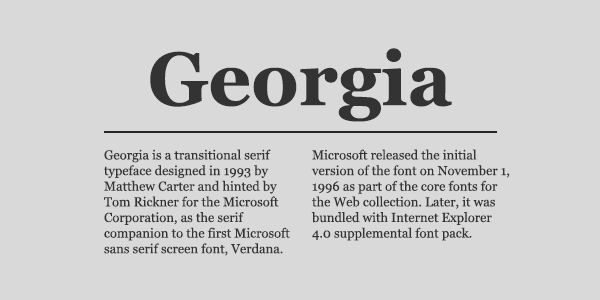
The first recommendation you can consider is Georgia font. The design of the letters in this font is simple and the combination of letters that form words are positioned close together flawlessly. This font also looks neat and elegant, so the audience can read the subtitles quickly.
Another perk of using the Georgia font is suitable for videos played on small screens. Audiences can read subtitles easily and quickly, even though they are watching videos on a smartphone. As a result, the information from the video is conveyed properly.
2. Helvetica Neue Font
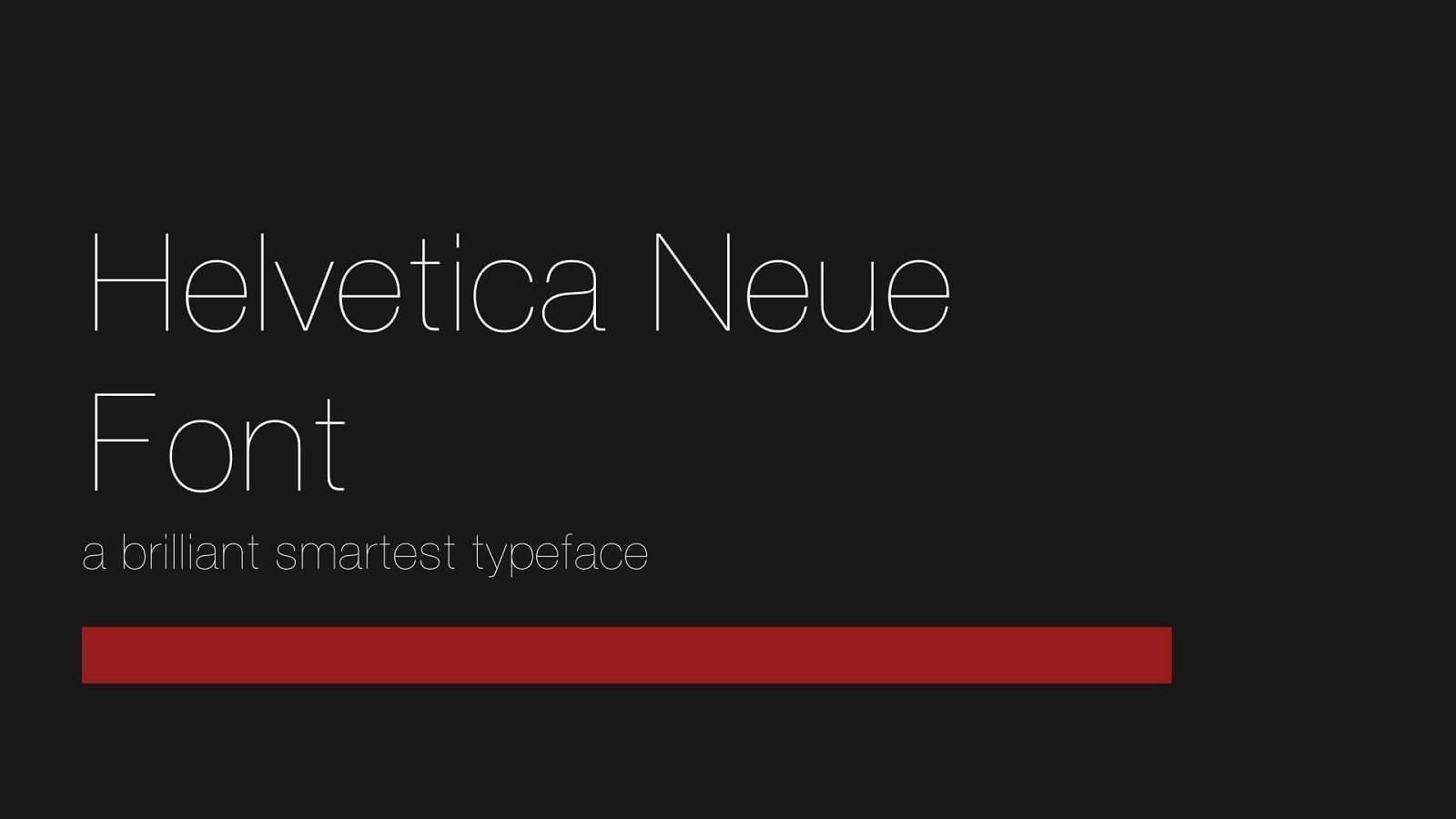
The best font for subtitles that you can also choose is the Helvetica Neue Font, which is a family of the quite well-known Helvetica font. This font evolved with a more readable design because each letter has the perfect thickness, not too bold and not too thin either.
In addition, the evolution of this font not only enhances legibility but also provides many number options.
3. Arial
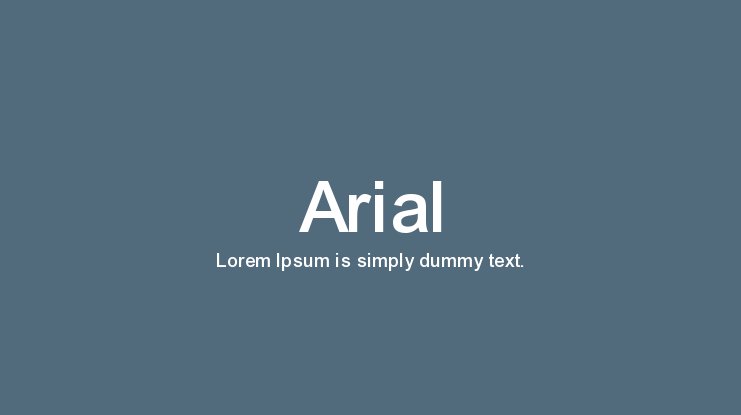
Another suitable san serif font family for subtitles fonts is the Arial font. There are various options you can choose from Arial, Arial Black, Arial Narrow, and Arial Rounded MT Bold fonts. If you want to present a more practical and readable display, you can use Arial font.
However, if you want your text to look bolder, Arial Black font is the best choice. Arial Black font is not suitable for long text because it will look cramped and distract the video. We recommend you use Arial Black font for closed captions. Thus, Arial, Arial Narrow, and Arial Rounded MT Bold are more compatible with long texts.
4. Tahoma
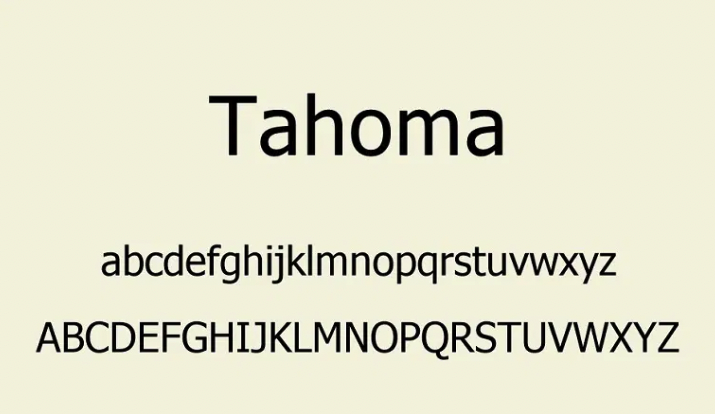
The next simple and humanist font that is suitable for subtitles is Tahoma. Many people use the Tahoma font as their standard video editing font. At first glance, the Tahoma fonts are very similar to the Verdana font. However, if you look closer at it, Tahoma’s letters are longer and narrower.
Even though the letters are dense, they do not reduce the legibility of the writing. Using the Tahoma font for subtitles can contain long sentences without making the video look cramped.
5. STIXGeneral Font
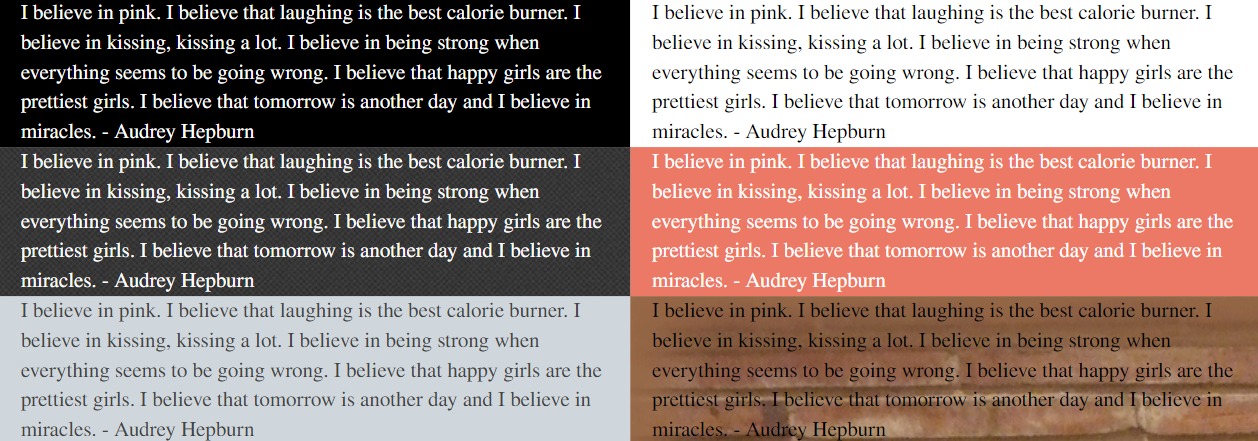
The type of font you use for subtitles can also affect the appearance of the video. You can use the STIXGeneral font if you want to give an elegant and fancy touch to your video display. The types of videos that are suitable for using this font are documentary videos, essay videos, or journalism videos.
Using the STIXGeneral font not only makes videos look more attractive but can also convey information. This is because the readability of the STIXGeneral font is quite clear. Interestingly, you can use this best font for subtitles for free.
6. Lucida Grande
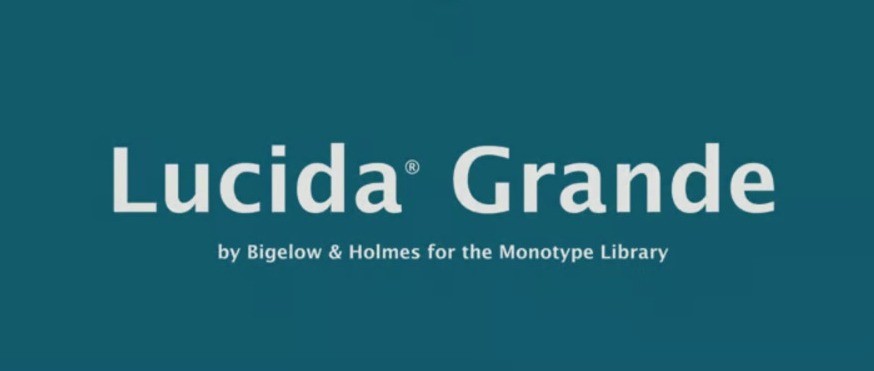
Another simple font design that is suitable for aesthetic subtitle font is Lucida Grande. This is because the Lucida Grande letters have a humanist display. The subtitle text using the Lucida Grande font is easy to read because each letter has space, so it doesn’t look cramped.
However, the space for each letter is not too wide, so it doesn’t take up much space and is still suitable for long texts.
7. Impact Font
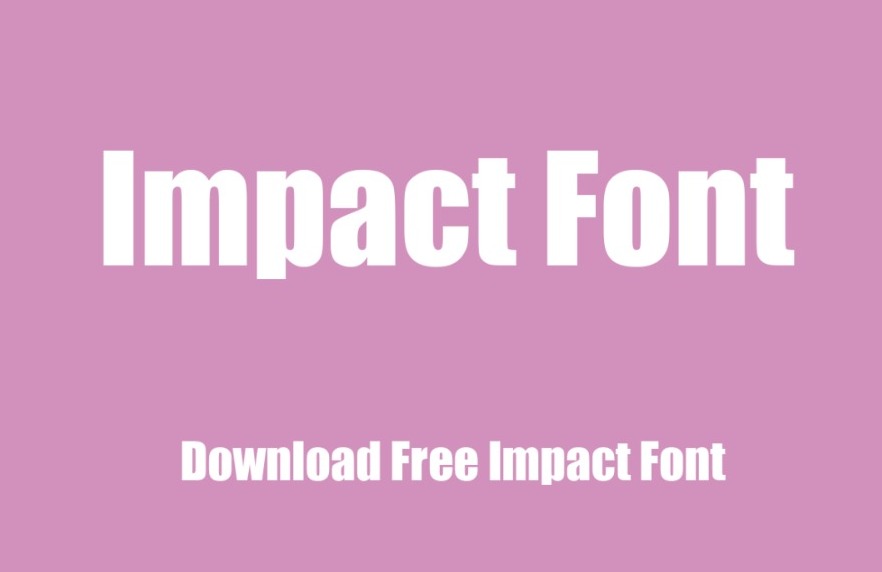
The last recommendation for popular subtitle fonts is Impact. This font uses bold letters so it is suitable for video subtitles that want to convey a statement emphatically.
The Impact is still included in the san serif class, so the design is simple and has very good legibility. The letters of the Impact font are designed to be elongated, so it doesn’t look cramped.
Have You Found the Best Fonts for Subtitle That You Want?